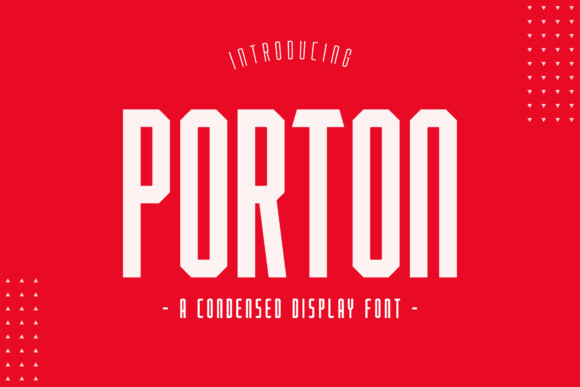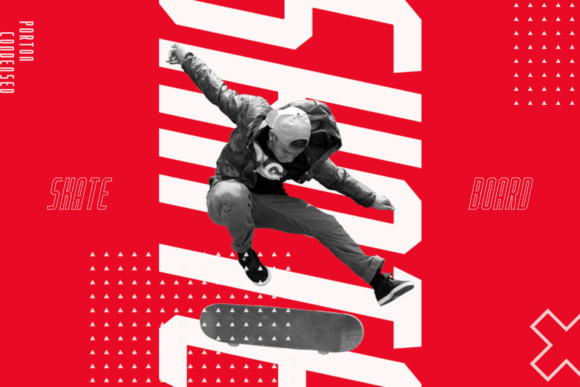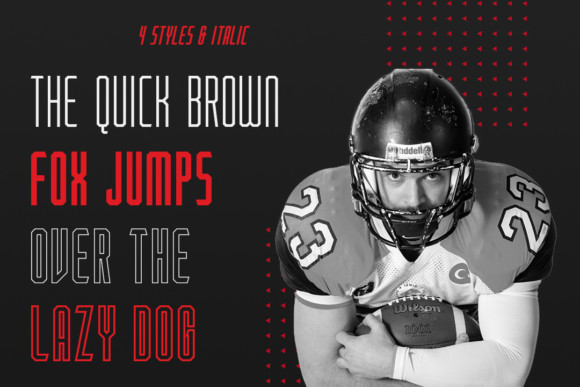
Porton Font
Porton is a condensed display font that is made for various purposes. It features an incredibly clean, straight and strong display font with a unique look.